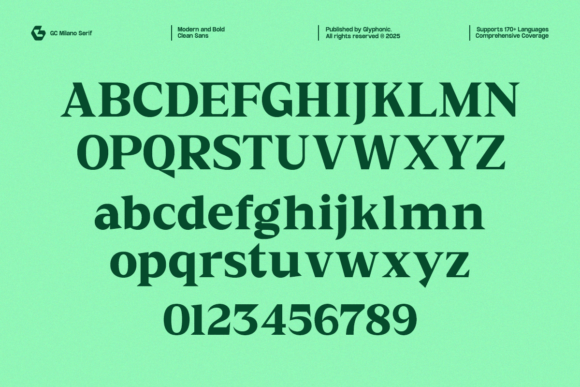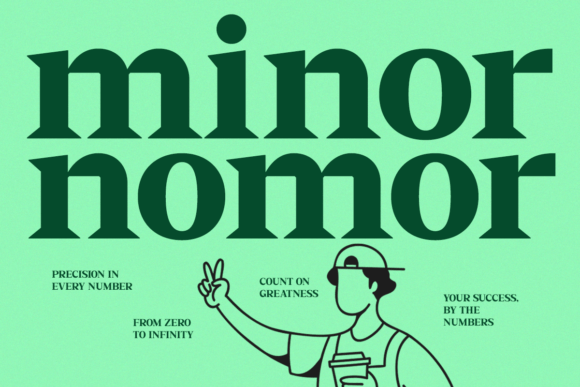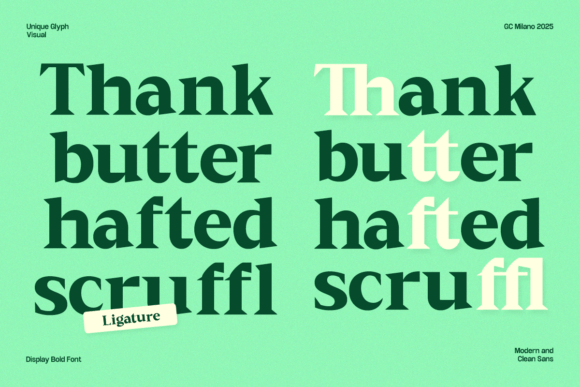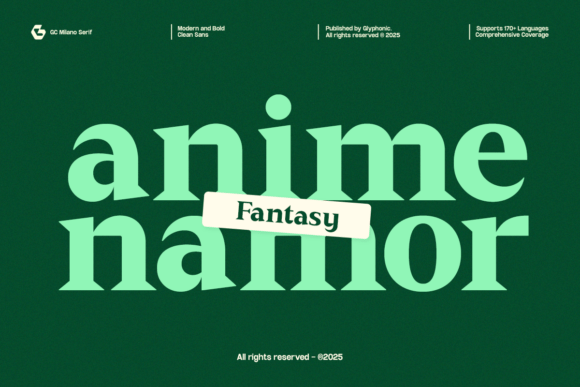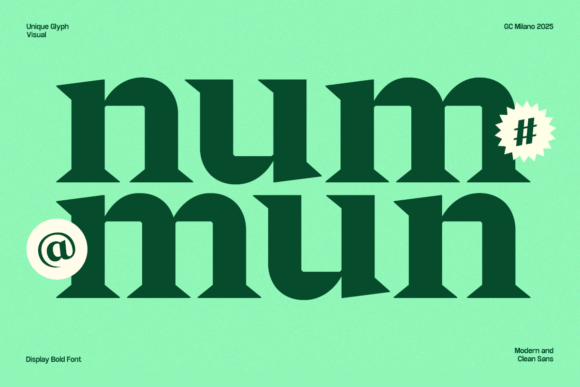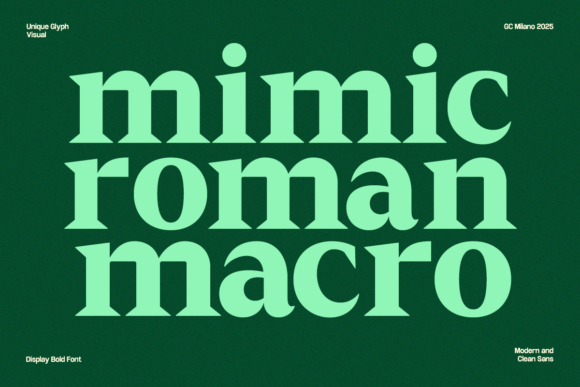
Introducing GC Milano Font: The Epitome of Modern Elegance and Strength
In the world of typography, few fonts manage to strike a balance between timeless elegance and striking strength. GC Milano, a modern, bold serif typeface, is one such exceptional design that seamlessly blends refinement with power. Whether you’re a designer, craftsperson, or simply a typography enthusiast, GC Milano is sure to captivate you with its unique charm and versatility.
Design and Characteristics
GC Milano is crafted with precision to deliver a confident and sophisticated impression in any design. Its high-contrast strokes, sharp serifs, and sculpted curves combine to create a typeface that exudes both power and elegance. This modern serif font is designed to stand out while remaining refined, making it perfectly suited for a wide range of applications, from headlines and branding to logos, packaging, editorial layouts, and luxury-inspired visuals.
Versatility and Applications
One of the standout features of GC Milano is its versatility. This typeface can be used in various design projects, including:
• Fashion Identities: Create stunning fashion logos, labels, and branding materials that exude luxury and sophistication.
• Editorial Spreads: Elevate your editorial designs, such as magazine spreads, articles, and advertisements, with GC Milano’s refined and elegant style.
• Artistic Projects: Add a touch of modern elegance to your artistic projects, including posters, flyers, and brochures.
• Branding and Logos: Use GC Milano to create bold, memorable logos and branding materials that make a lasting impression.
• Packaging: Enhance your packaging designs with GC Milano’s luxurious and sophisticated style.
Technical Features
GC Milano font is PUA-encoded, allowing effortless access to all glyphs, swashes, and alternate characters. This feature makes it easy to experiment with different design variations and creative expressions. With GC Milano, you can:
• Access a wide range of glyphs and swashes: Unlock your creative potential with GC Milano’s extensive character set.
• Experiment with alternate characters: Try out different design variations to find the perfect fit for your project.
Why Choose GC Milano?
GC Milano offers a unique combination of modern elegance and striking strength, making it an excellent choice for designers and craftspersons seeking a sophisticated typeface. Here are some compelling reasons to choose GC Milano:
• Timeless Elegance: GC Milano’s classic design ensures that your work will remain stylish and relevant for years to come.
• Versatility: Use GC Milano in a wide range of design projects, from fashion and editorial to artistic and branding applications.
• Confidence and Sophistication: GC Milano’s bold and refined style conveys confidence and sophistication, making it perfect for high-end designs.
GC Milano font is a masterpiece of modern typography, offering a perfect blend of elegance, strength, and versatility. Whether you’re a designer, craftsperson, or simply a typography enthusiast, GC Milano is sure to inspire your creative projects. With its high-contrast strokes, sharp serifs, and sculpted curves, GC Milano is the ideal choice for those seeking a sophisticated and refined typeface. Make your design bold, refined, and timeless with the GC Milano font.
Unlock your creative potential with GC Milano and experience the perfect fusion of modern elegance and striking strength. Get ready to elevate your designs and make a lasting impression with this exceptional typeface.